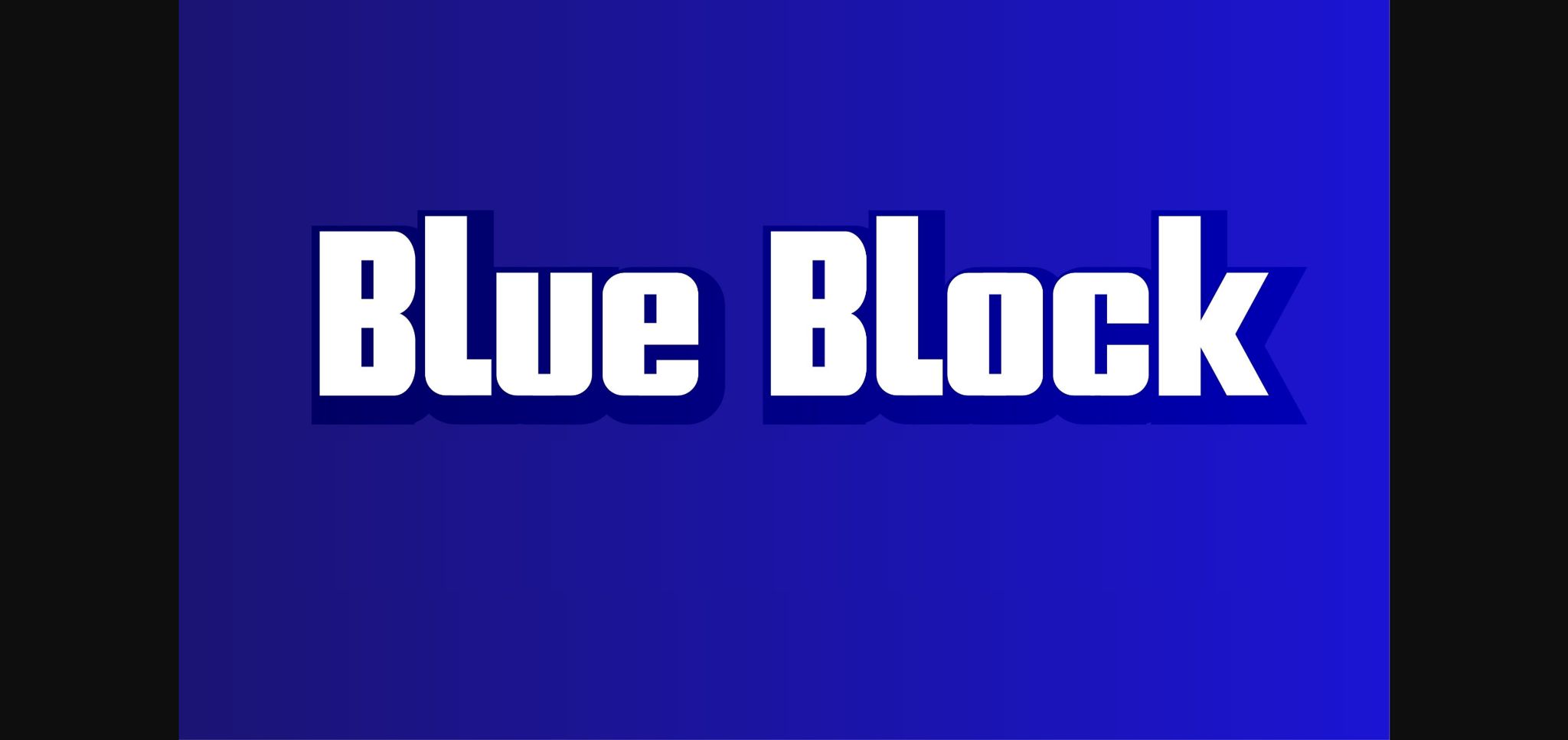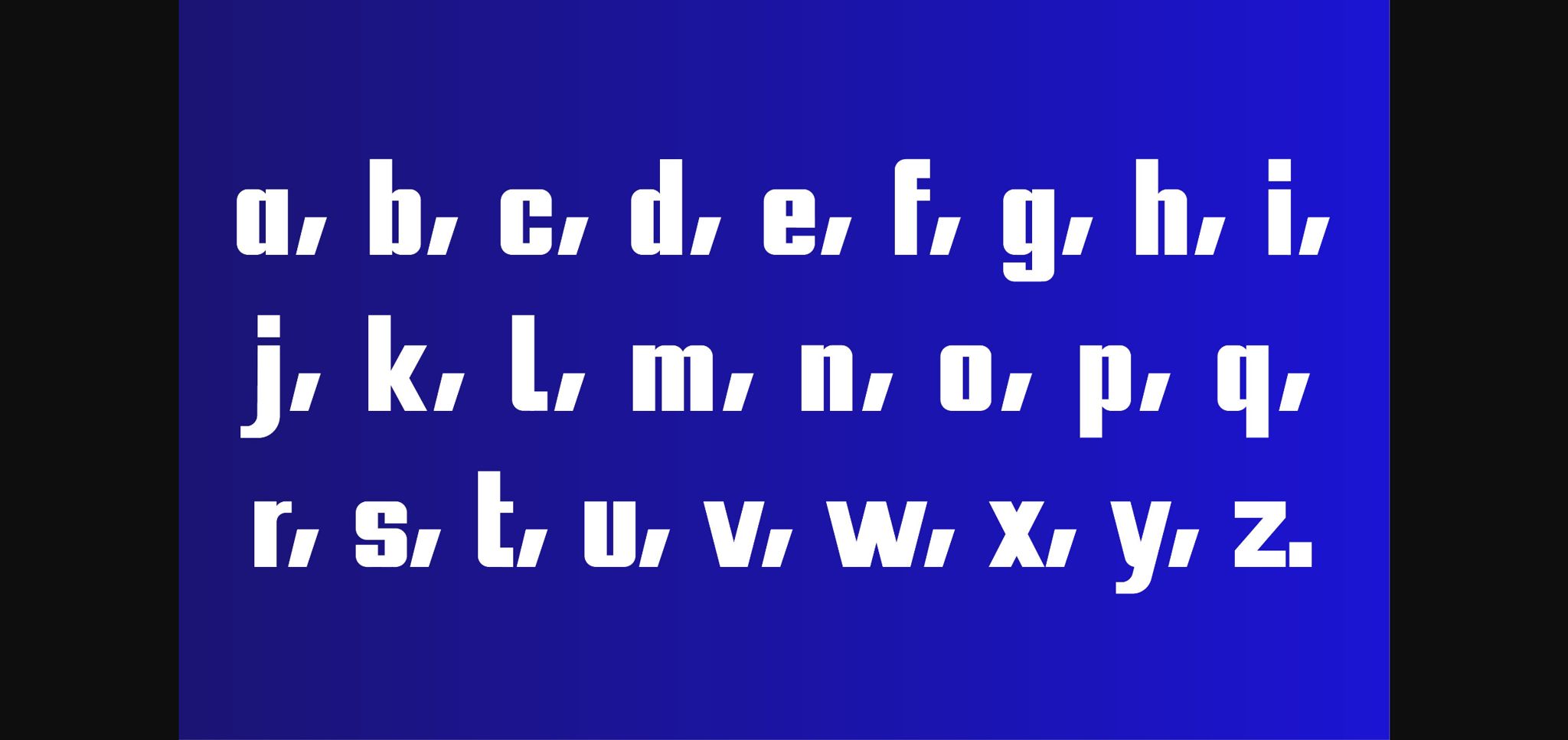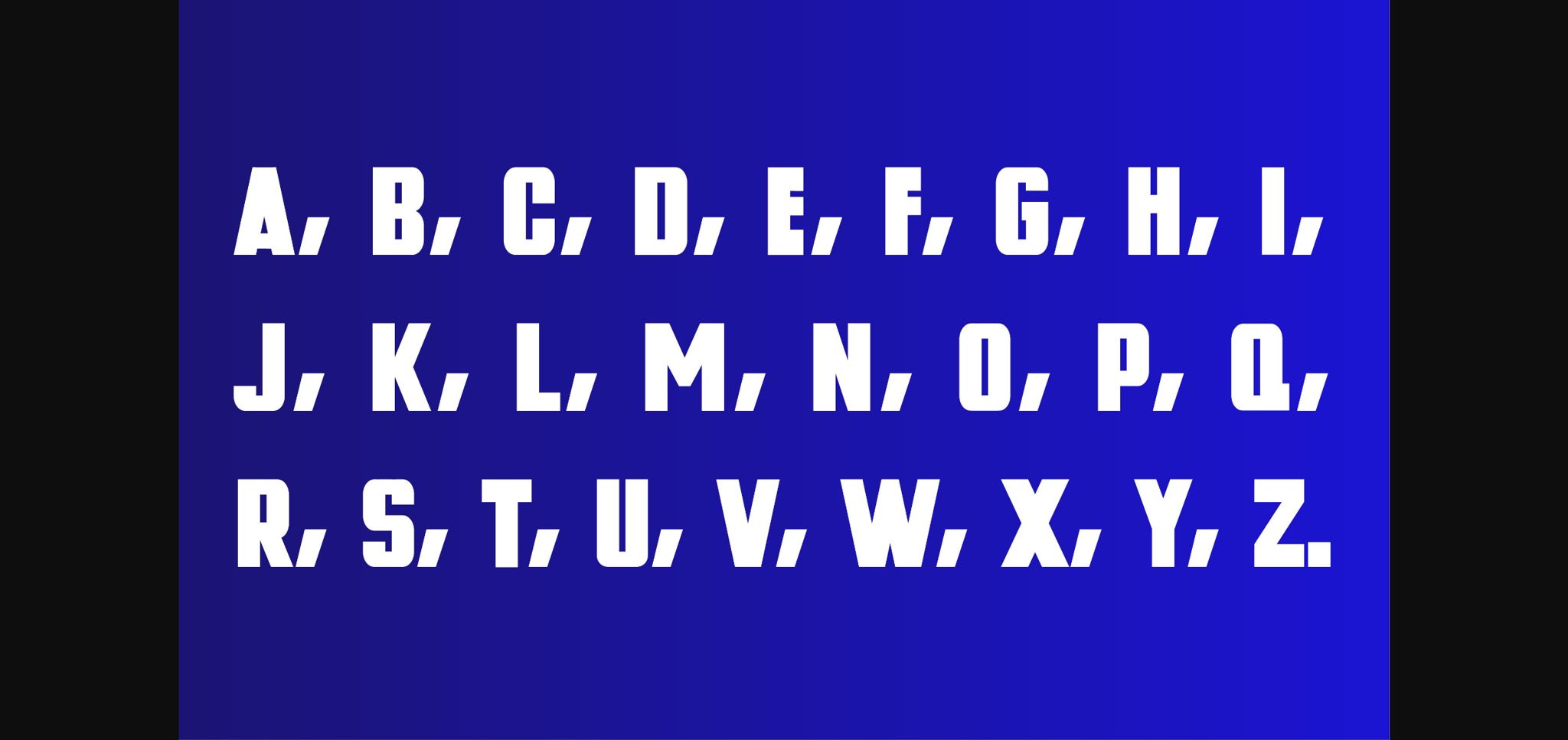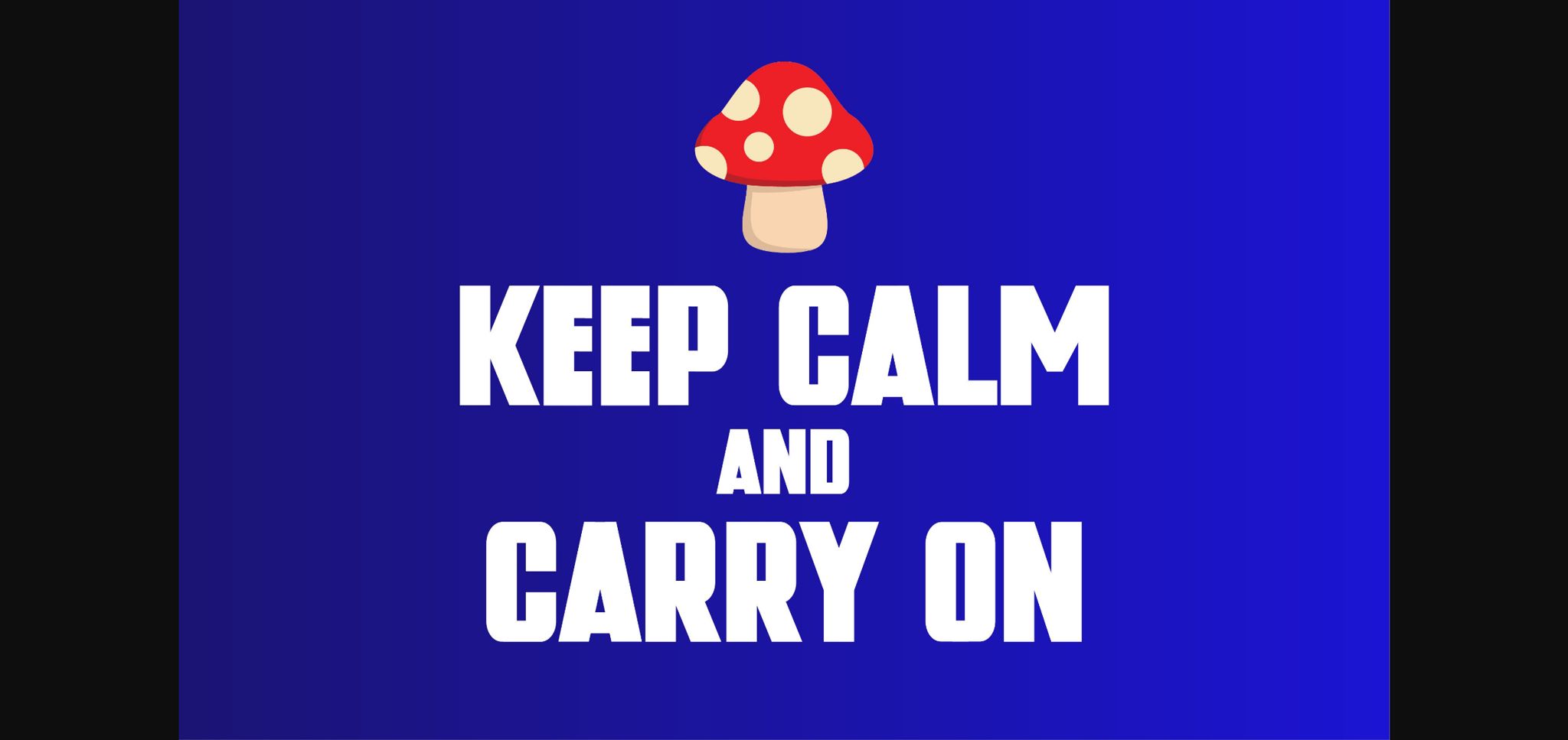
Blue Block Font
About Blue Block Font
Like 80s old gaming, Blue Block is amusing and simple. It shows off its sturdy appearance and stands strong for a great heading. This typeface is appropriate for brands that are joyful, bold, and happy because it doesn’t take itself too seriously. It’s excellent for use in the computer and gaming industries, and it would look amazing in headlines and advertisements.